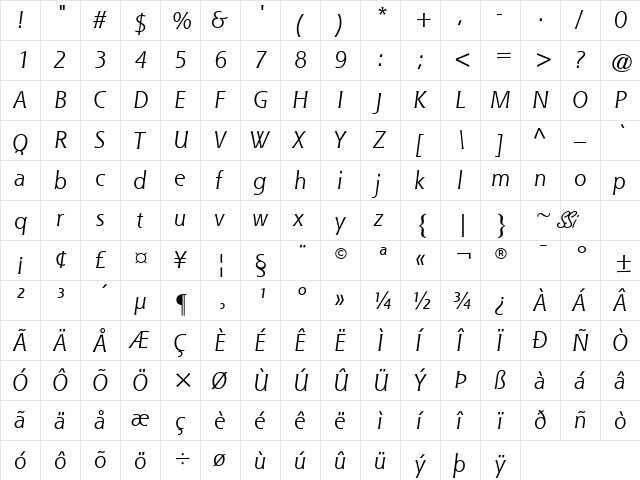
Que SSi Italic
Design Context for Que SSi Typeface
Que SSi is a composed and adaptable typeface that performs quietly and consistently across a wide range of design contexts. The dynamic lean of this cut emphasises speed and emphasis in any layout.
Pro Tip: Use Que SSi for emphasis, pull quotes, and subheadings where its slanted energy can add rhythm to the layout.